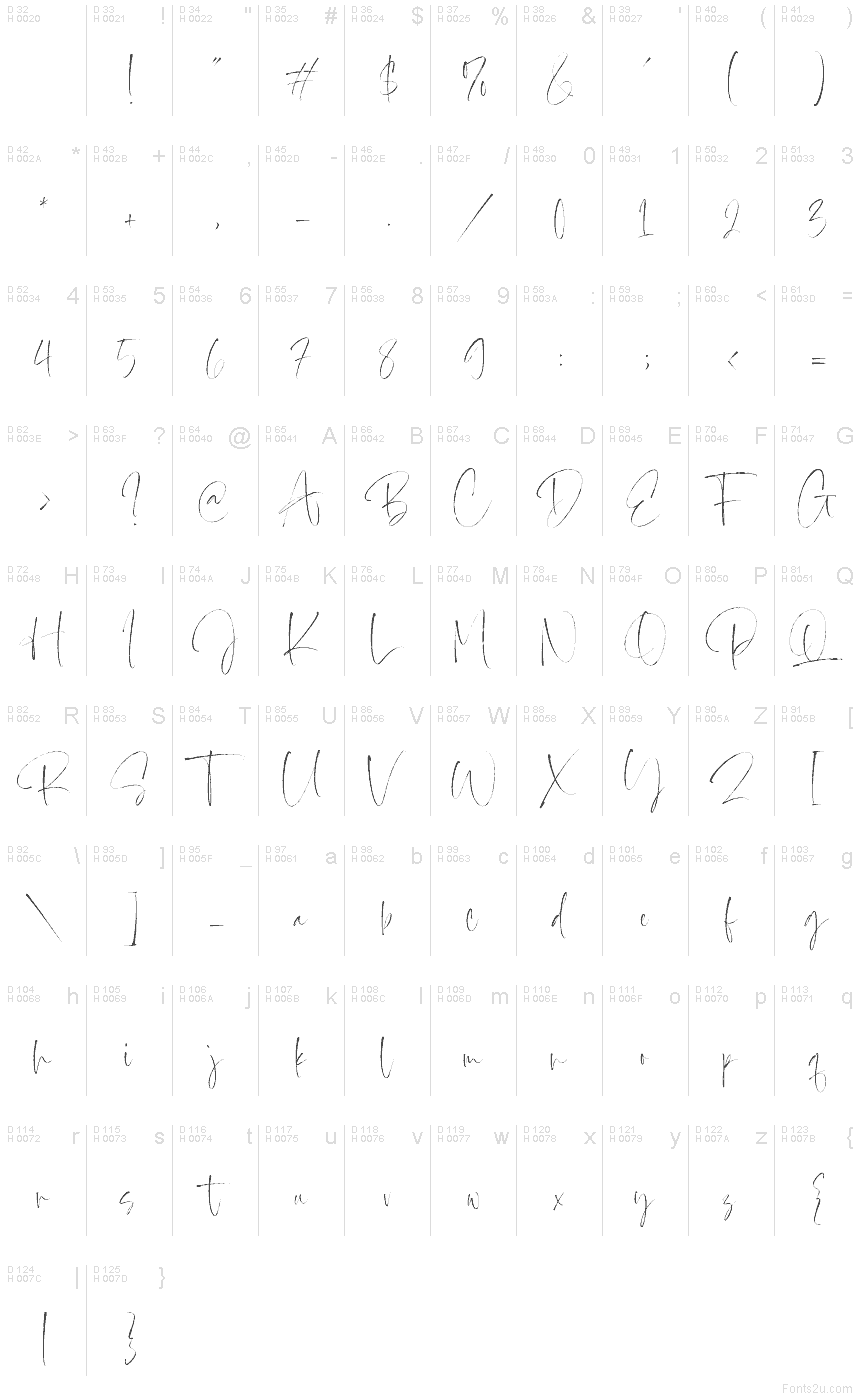
Estella Gardens
Estella Gardens font by Timur Type is a free thin signature script font. It solves the “luxury but lived‑in” challenge: the strokes feel freshly inked, with airy hairlines, feathery pressure shifts, and roomy spacing that stays legible at headline sizes. Long, sweeping ascenders and a relaxed baseline add an effortless, editorial poise—elegant without getting fussy.
Using Estella Gardens, your brand marks and wedding suites gain a bespoke, handwritten finish; it also shines on beauty packaging, photographer watermarks, boutique signage, social posts, and refined stationery. The rhythm is loose yet consistent, so words flow like a quick, confident autograph. For balance, pair this free font with a clean geometric sans for body copy, and set Estella Gardens large with generous letterspacing to let the grainy strokes breathe.
Estella Gardens font also supports multilingualism.
Estella Gardens font features:
- Full set of standard alphabet and punctuation